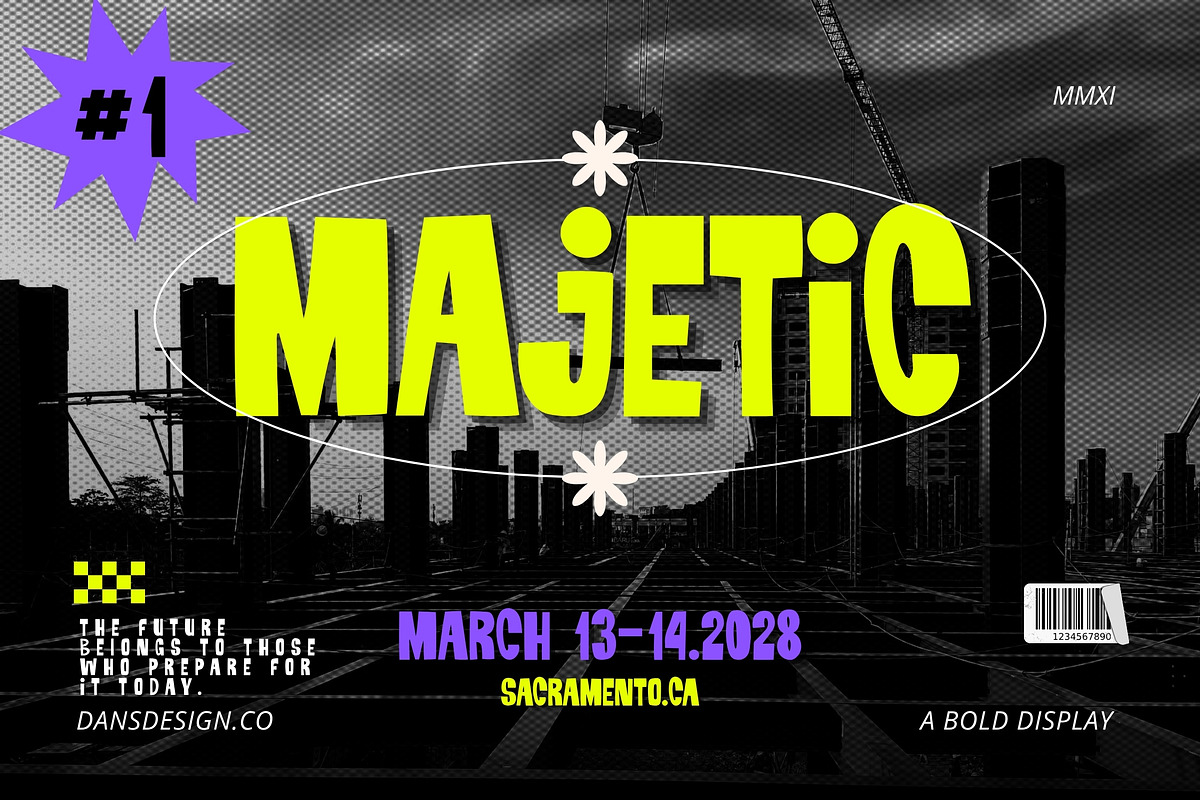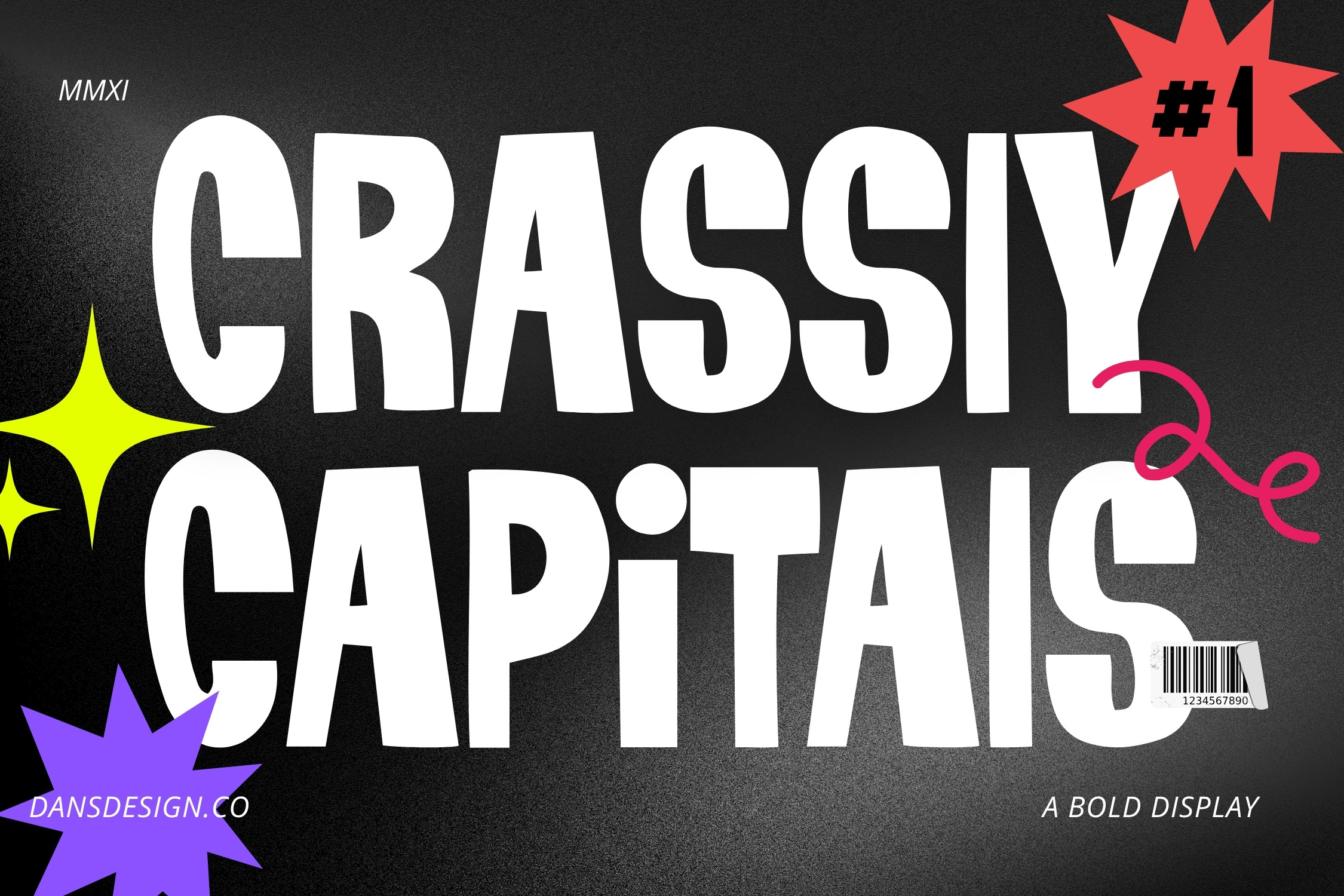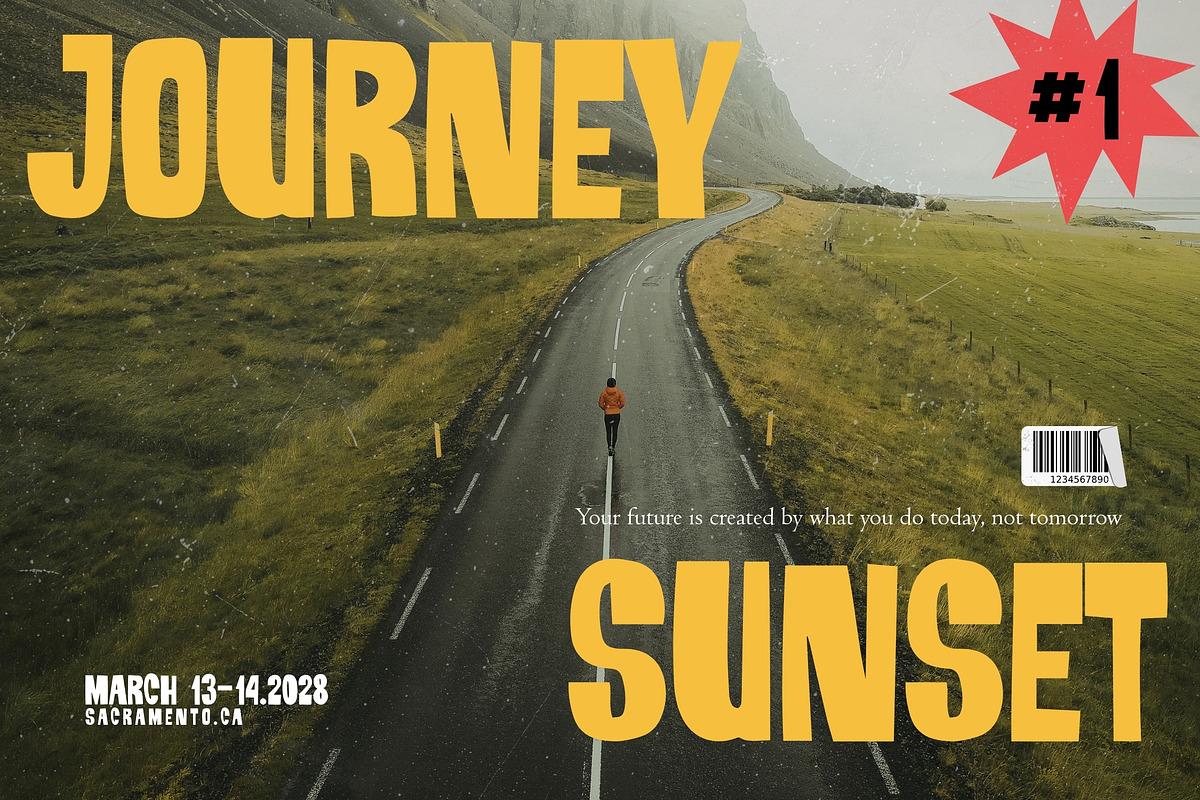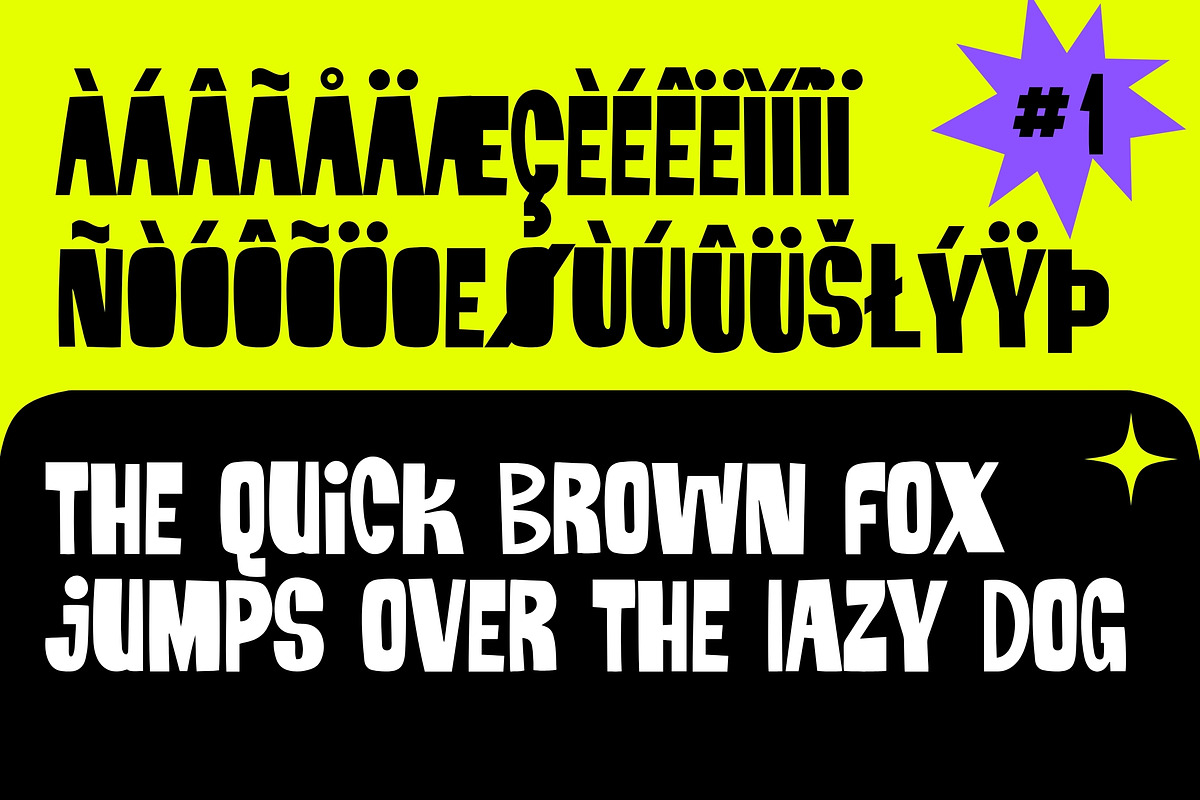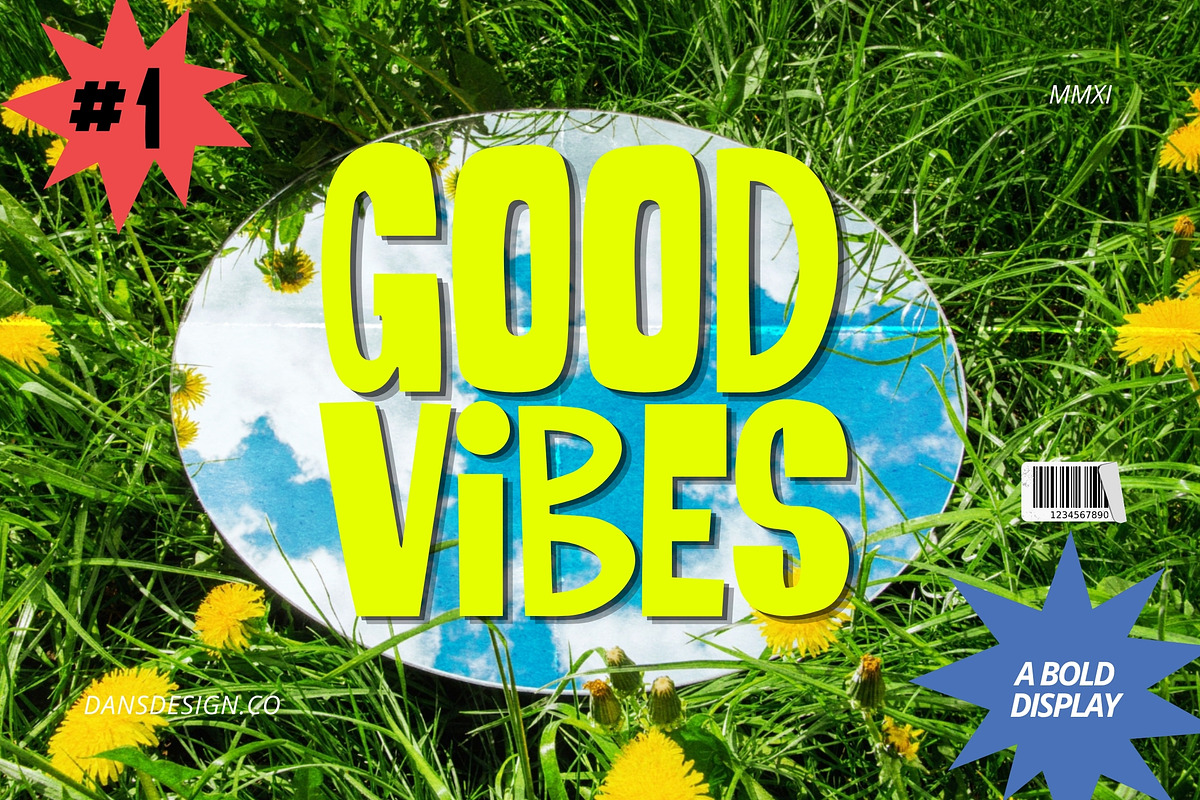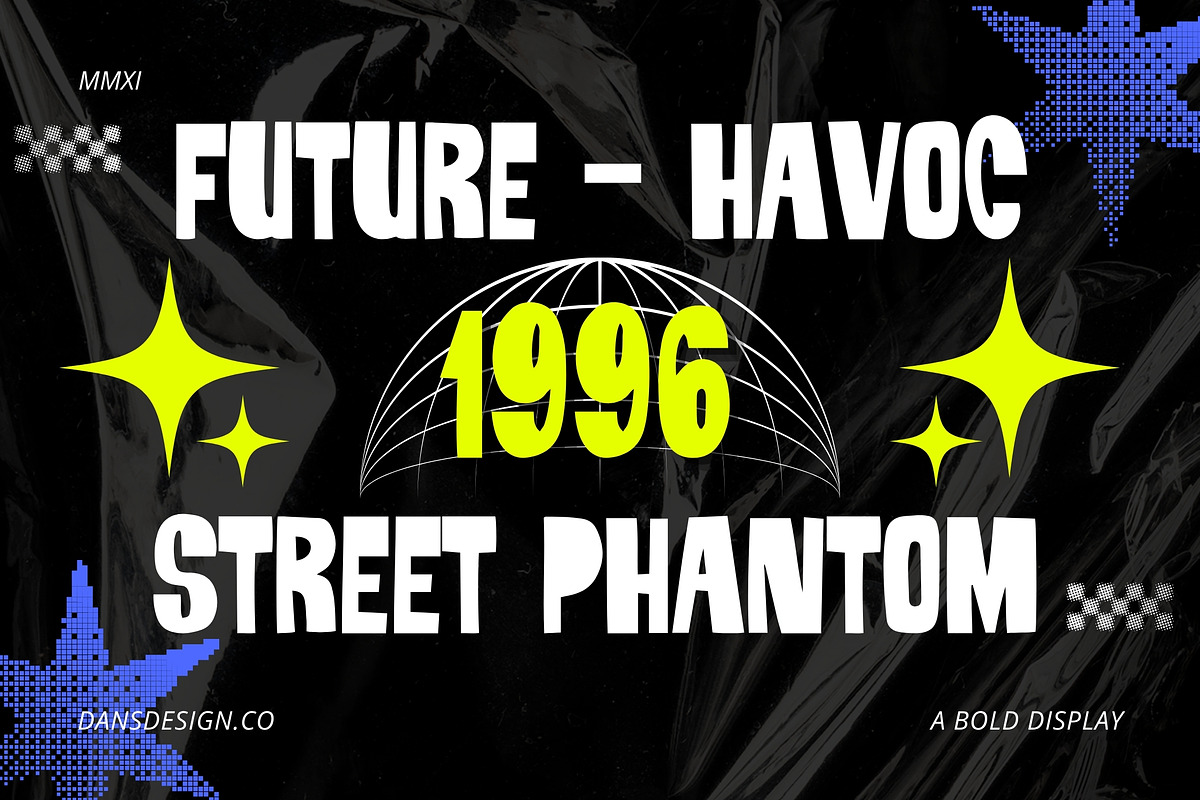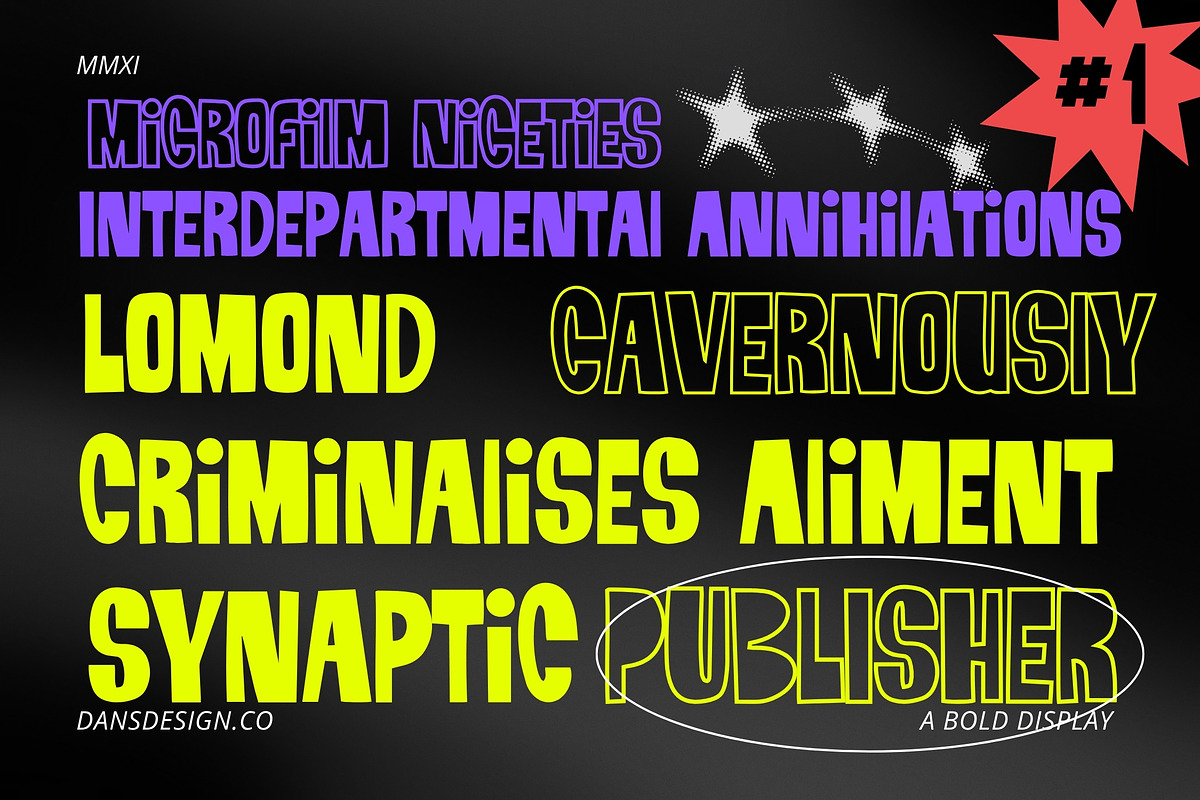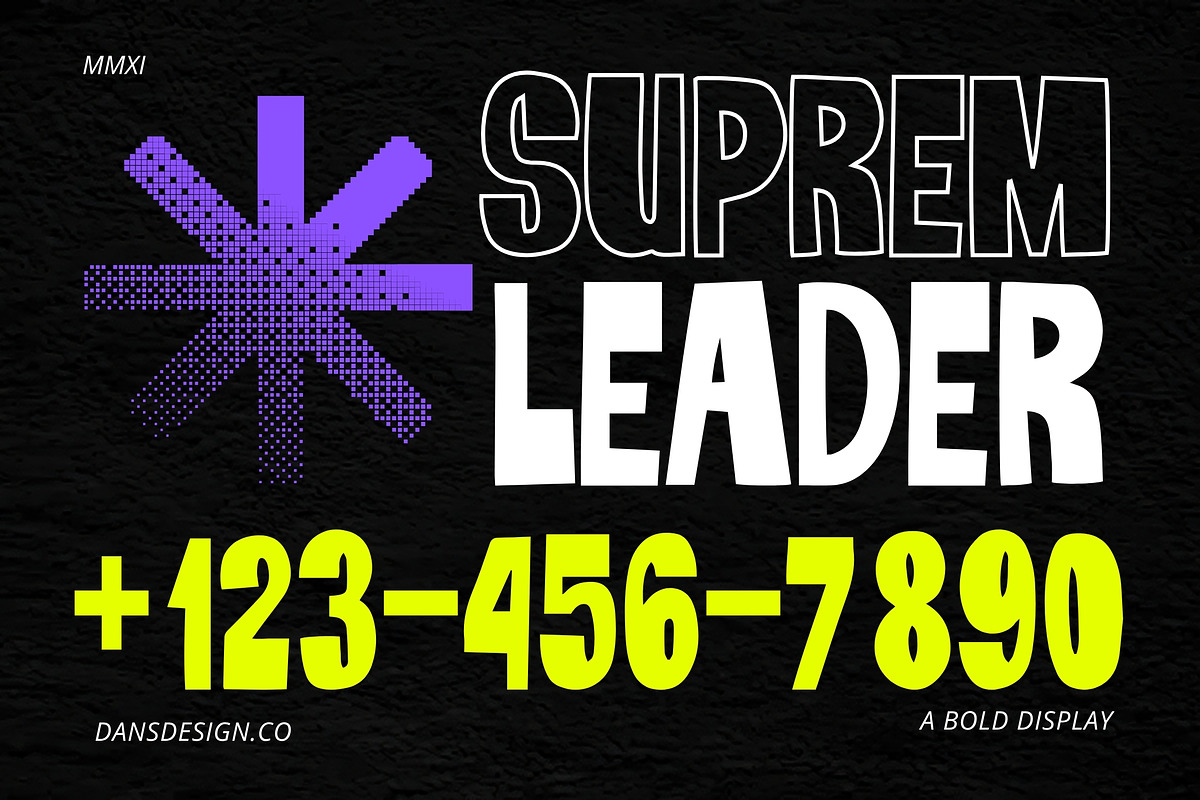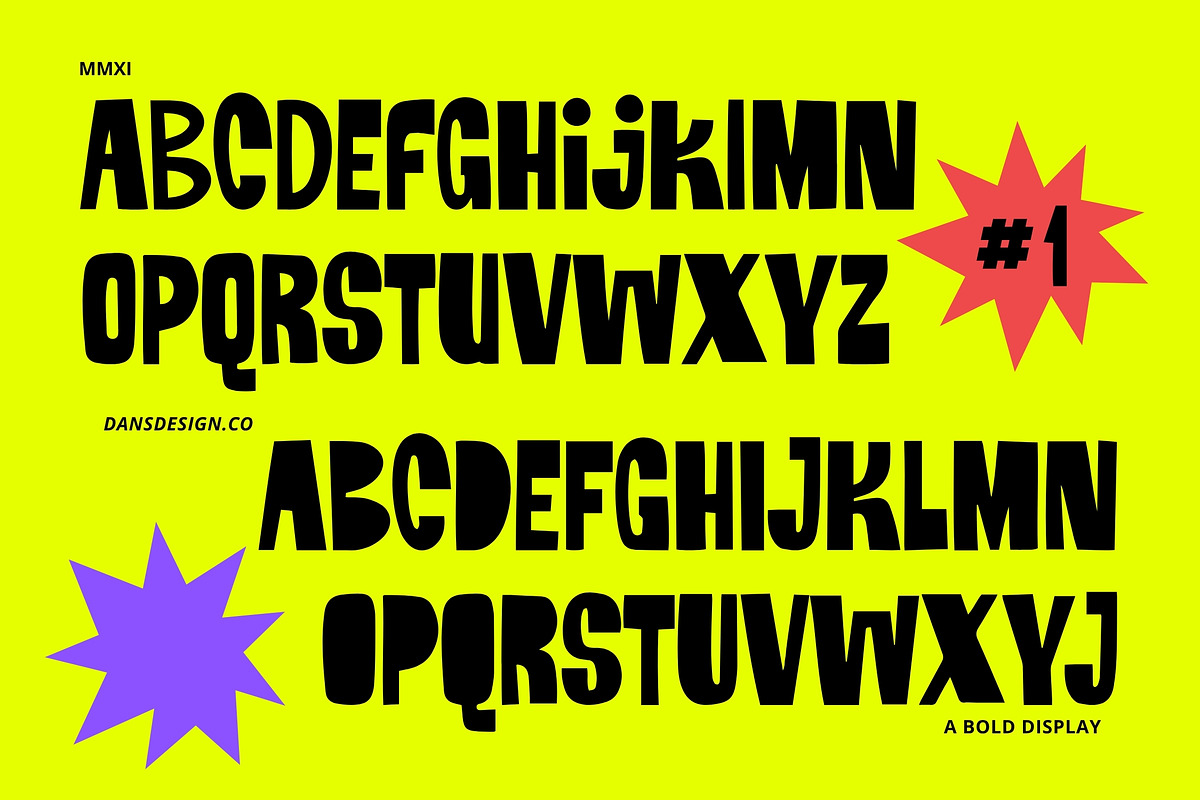
Crassly Capitals Display Font
Crassly Capitals is a bold display typeface built to command attention. Featuring tall, condensed letterforms with subtly irregular curves and a playful edge, this typeface blends retro poster energy with contemporary graphic impact. Its strong vertical structure and expressive personality make every word feel larger than life.
Designed for designers who want instant visual presence, Crassly Capitals performs exceptionally well in headlines, posters, album artwork, branding, packaging, event promotions, editorial layouts, social media graphics, and statement-making typography. The distinctive shapes create a dynamic rhythm while maintaining readability at large sizes.
Whether you're crafting a nostalgic-inspired campaign, a street-style poster, a music flyer, or a modern visual identity, Crassly Capitals delivers bold character, confidence, and unforgettable visual appeal. Its unique balance between quirky charm and commanding strength makes it a versatile choice for creative projects that refuse to blend into the background.
Bold display style
Ideal for headlines and large-format typography
Crassly Capitals transforms ordinary words into eye-catching visual statements, bringing energy, personality, and impact to every design.